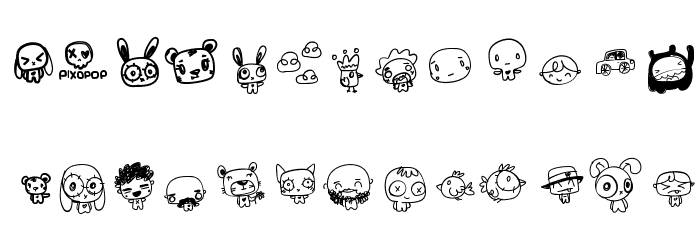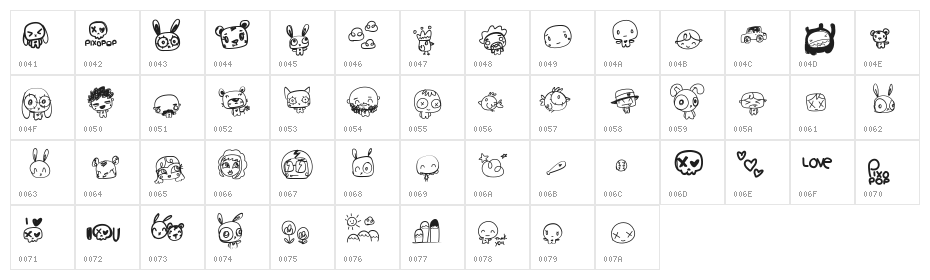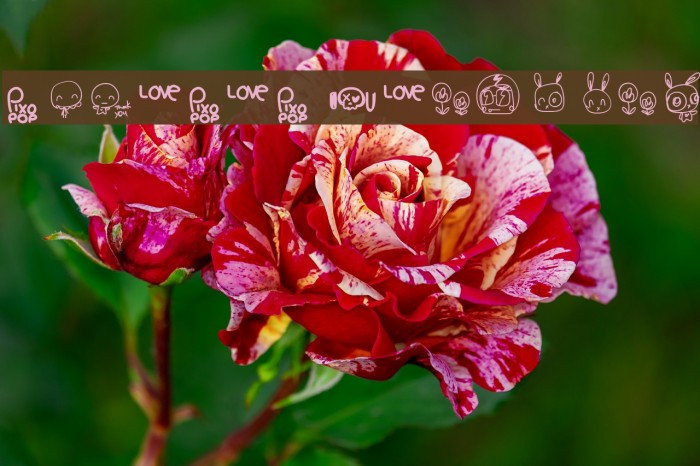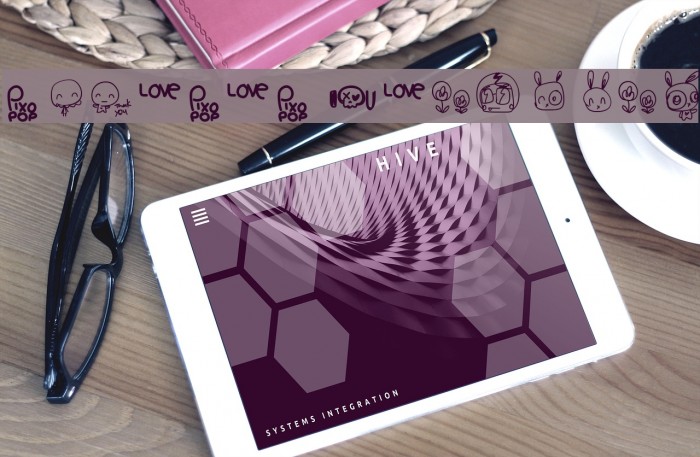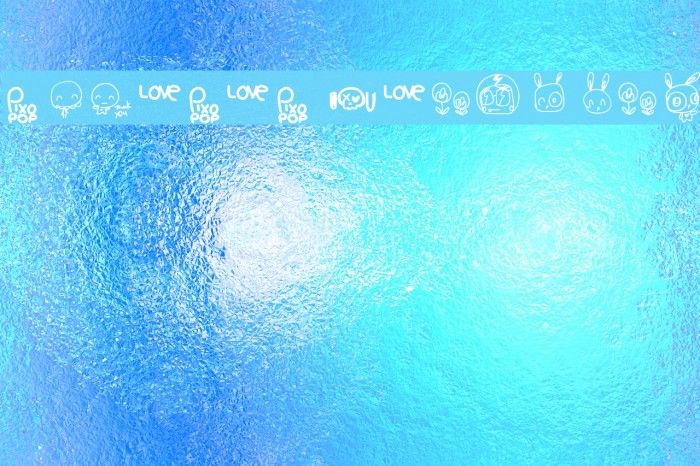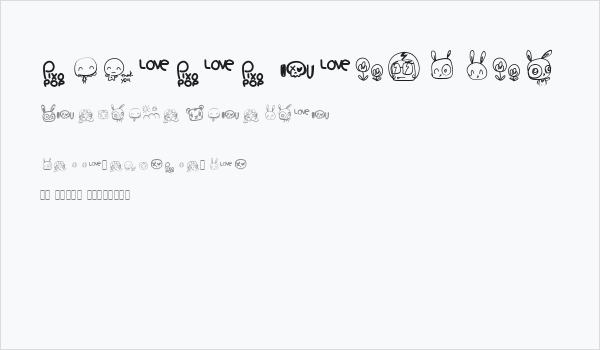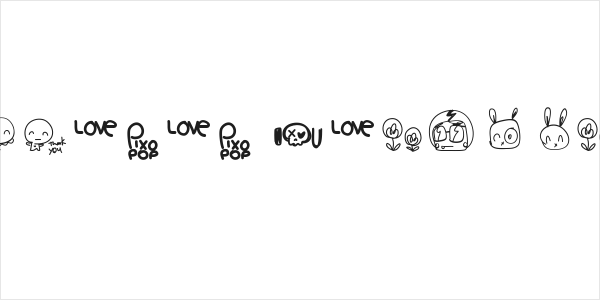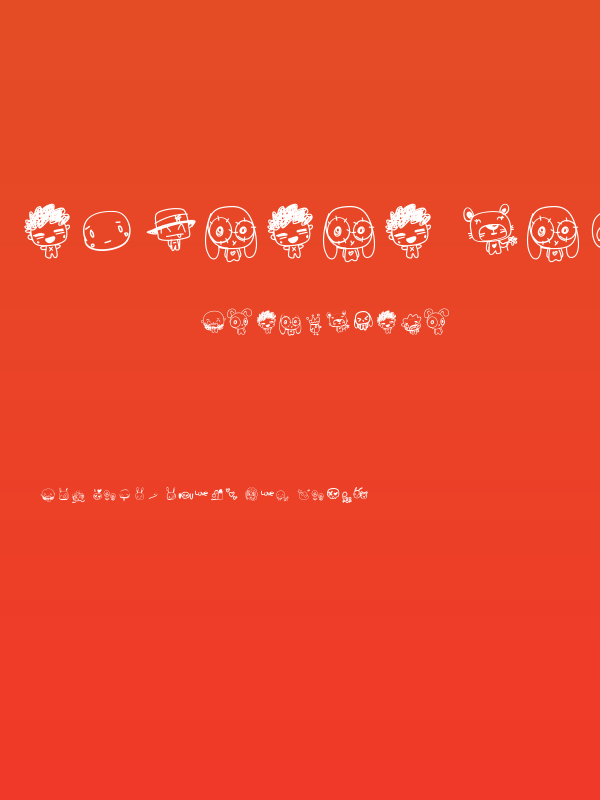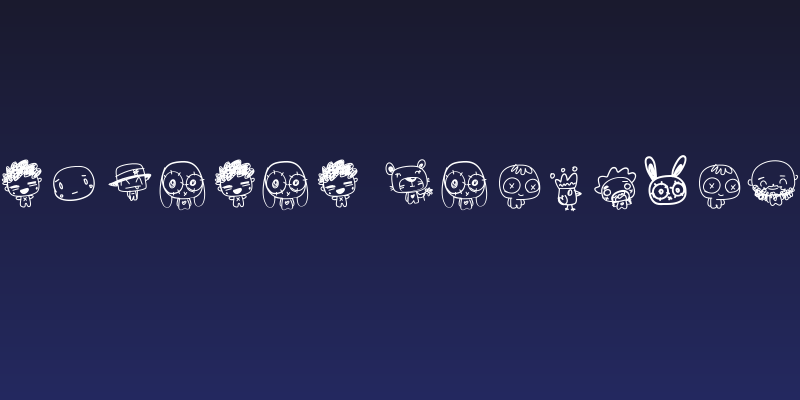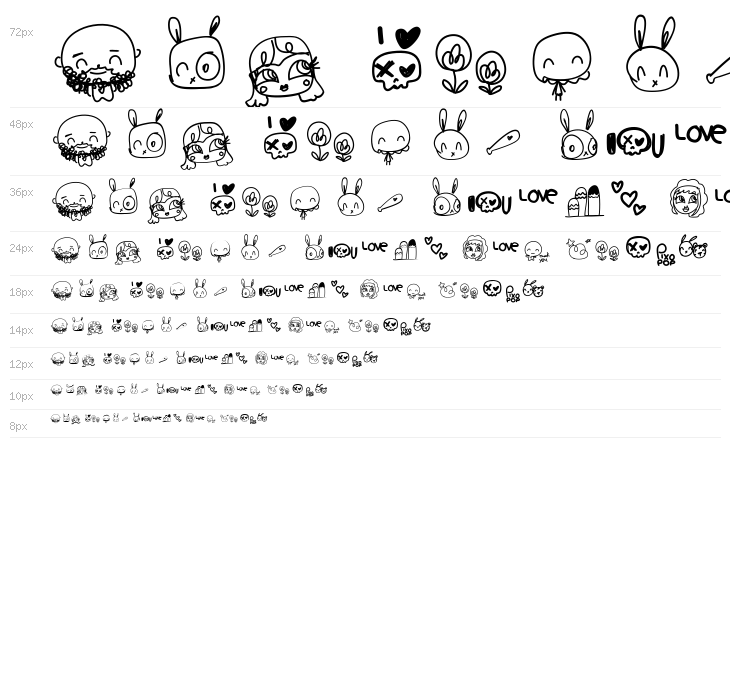
pixopop roughcut Font
pixopop roughcut Description
A playful, hand-drawn decorative font featuring whimsical cartoon characters, doodles, and expressive icons instead of traditional alphanumeric glyphs. The style is sketchy and informal, with varying line thickness and a childlike, imaginative feel.
| Overall Style | Playful, Whimsical, Hand-drawn, Decorative |
| Use Case | Logos, Headlines, Posters, Merchandise, Themed events |
| Proposed Projects | Children's books, greeting cards, playful branding, stickers, comics, party invitations. |